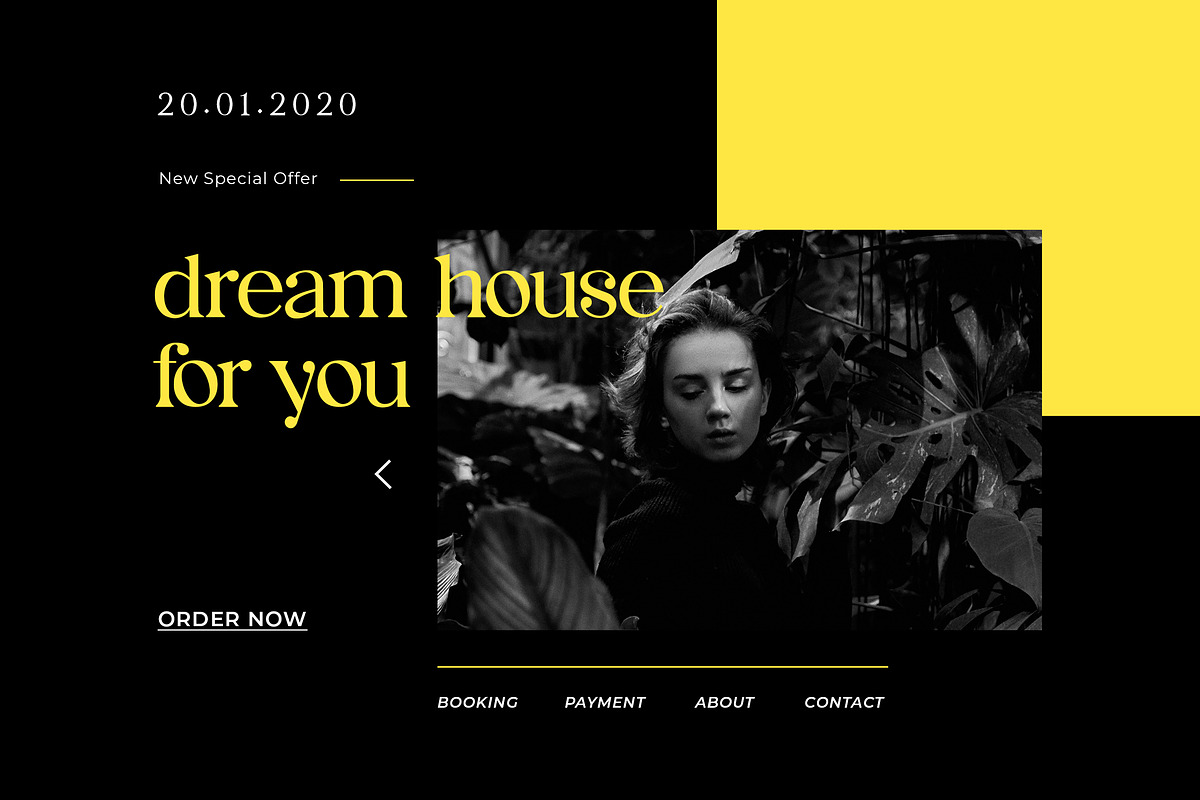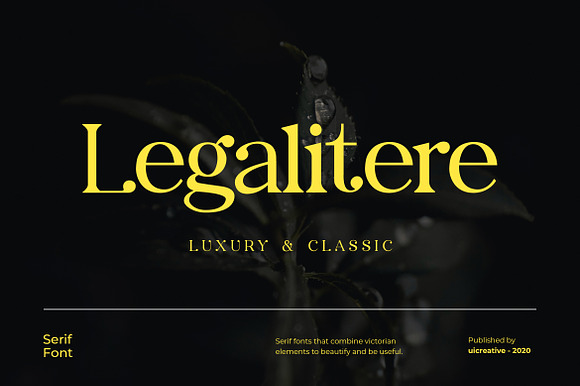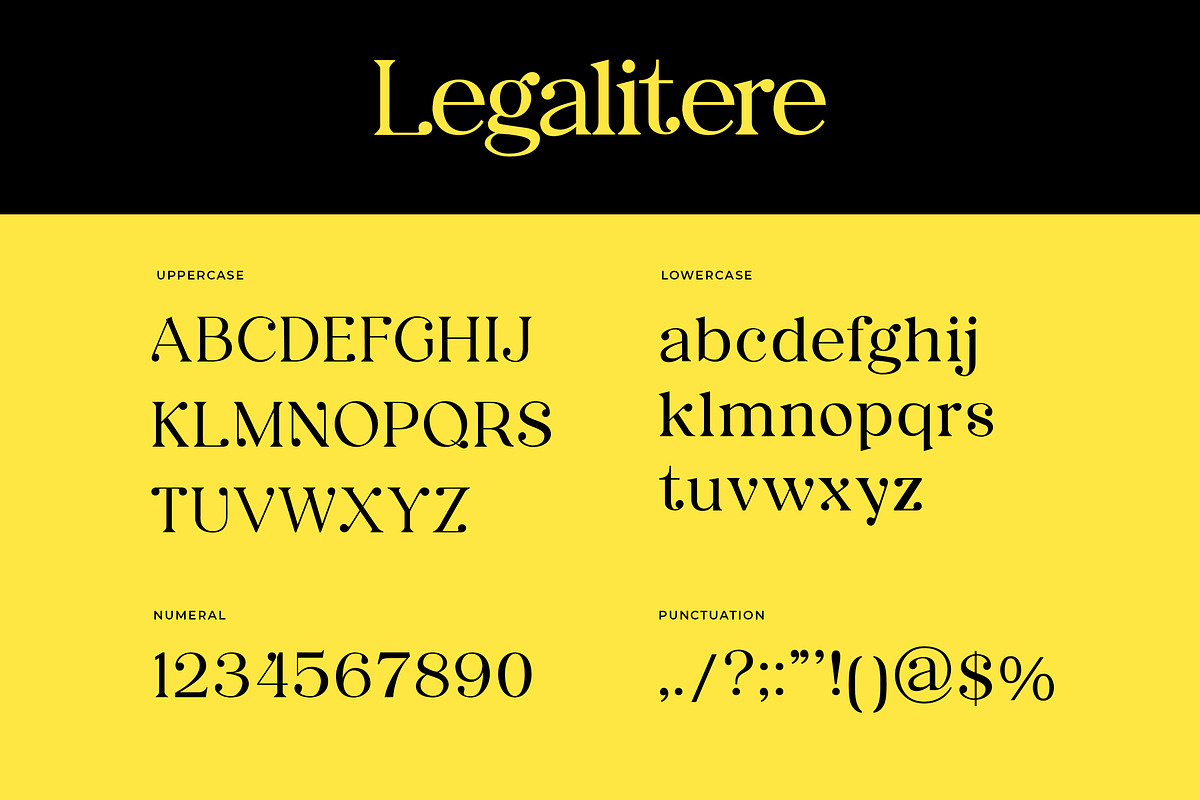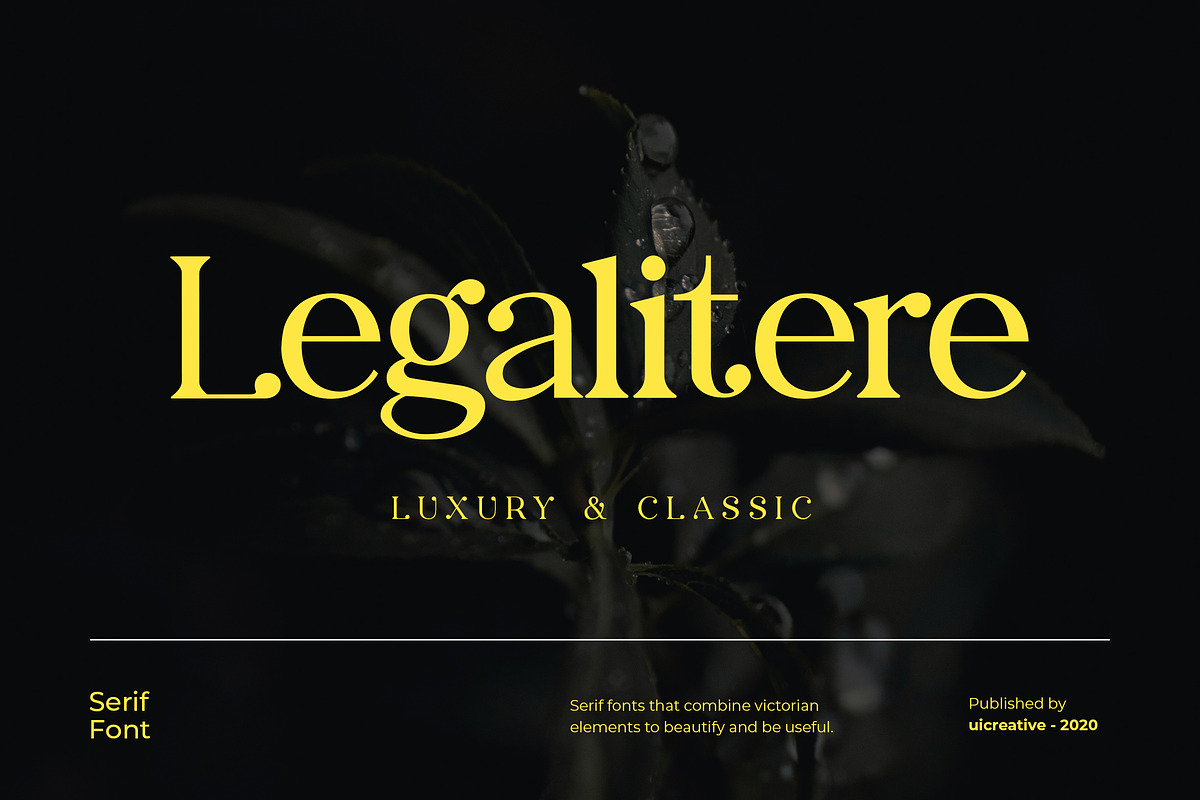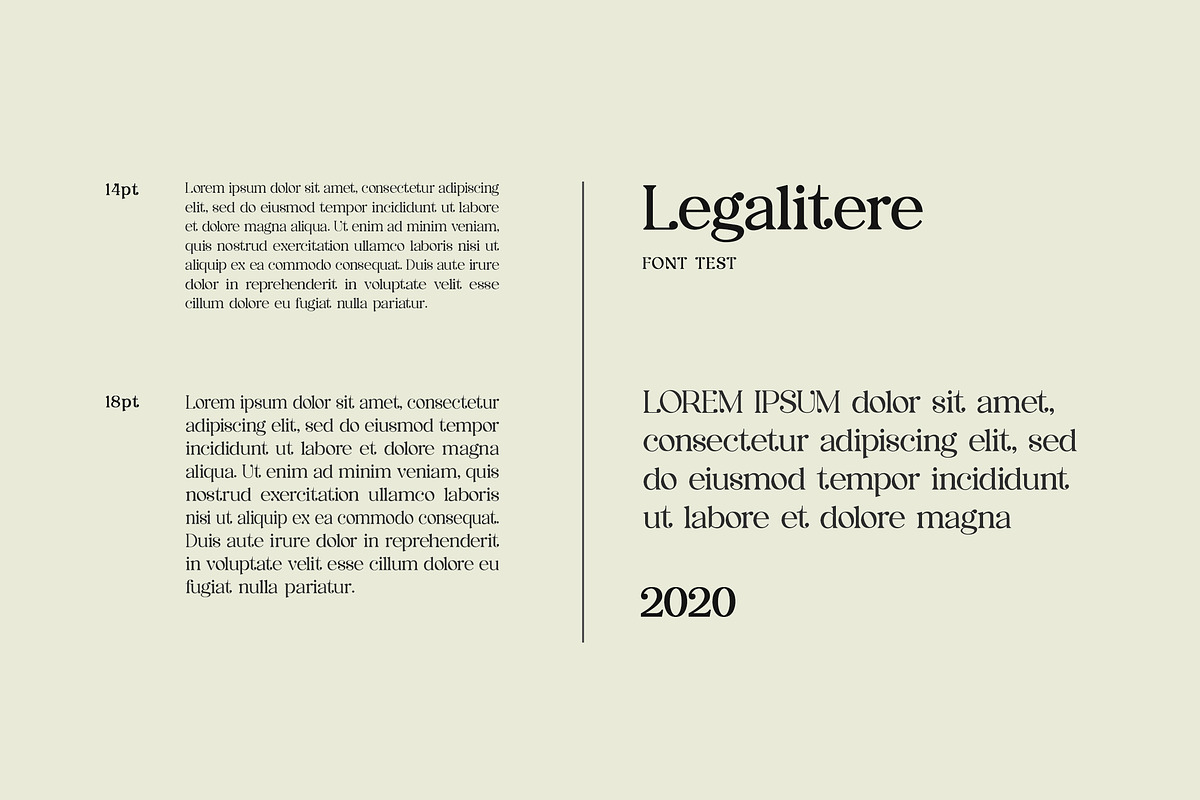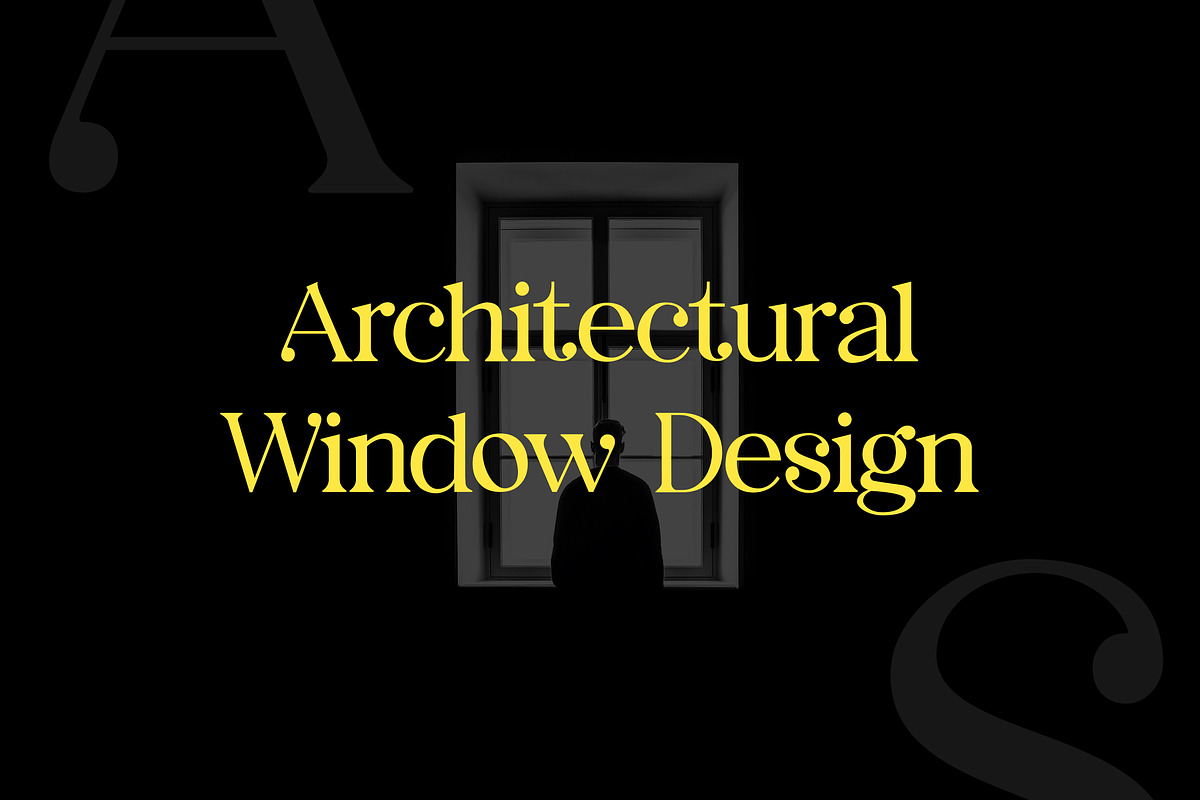
Legalitere Serif Font
Legalitere is a serif font that combines classic style fonts moderated with a touch of minimalist design, produces beautiful and elegant fonts, and is supported by ligatures and more font substitutes with all characters brought in will make you explore your design style more easily, with various alternative styles that allow for logos, posters, covers, main packaging, t-shirts, business cards, wedding cards and more, so what are you waiting for?